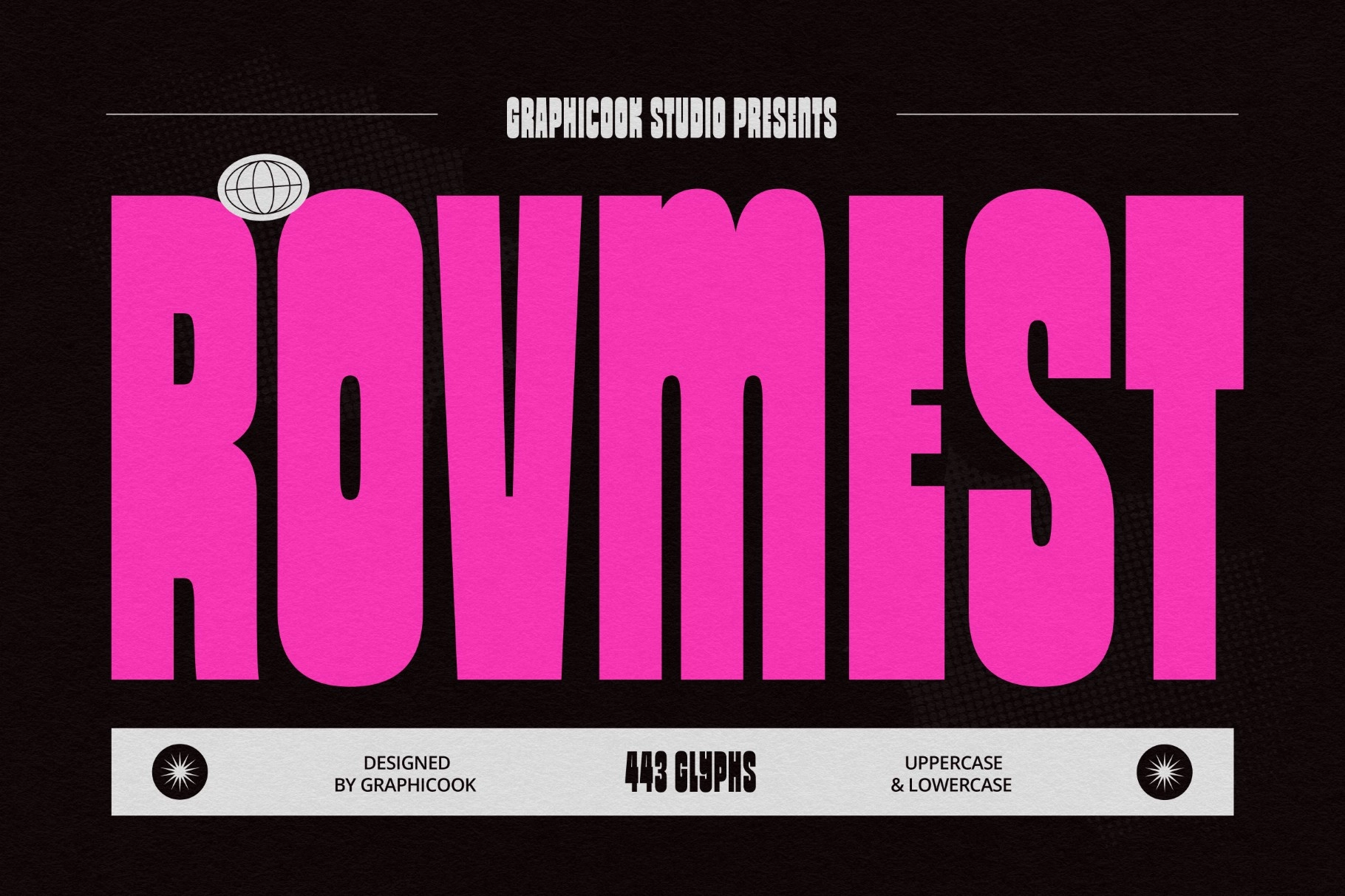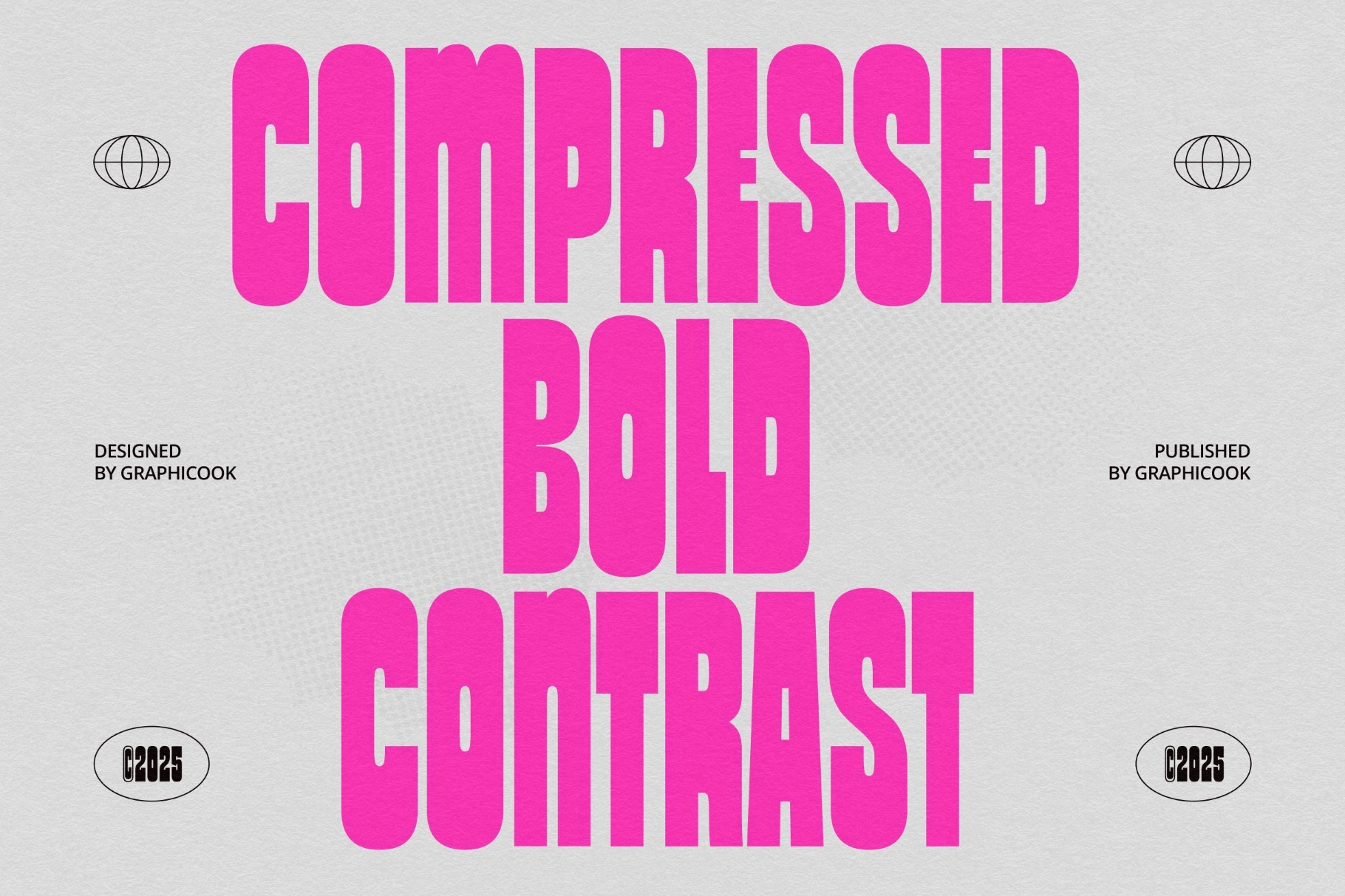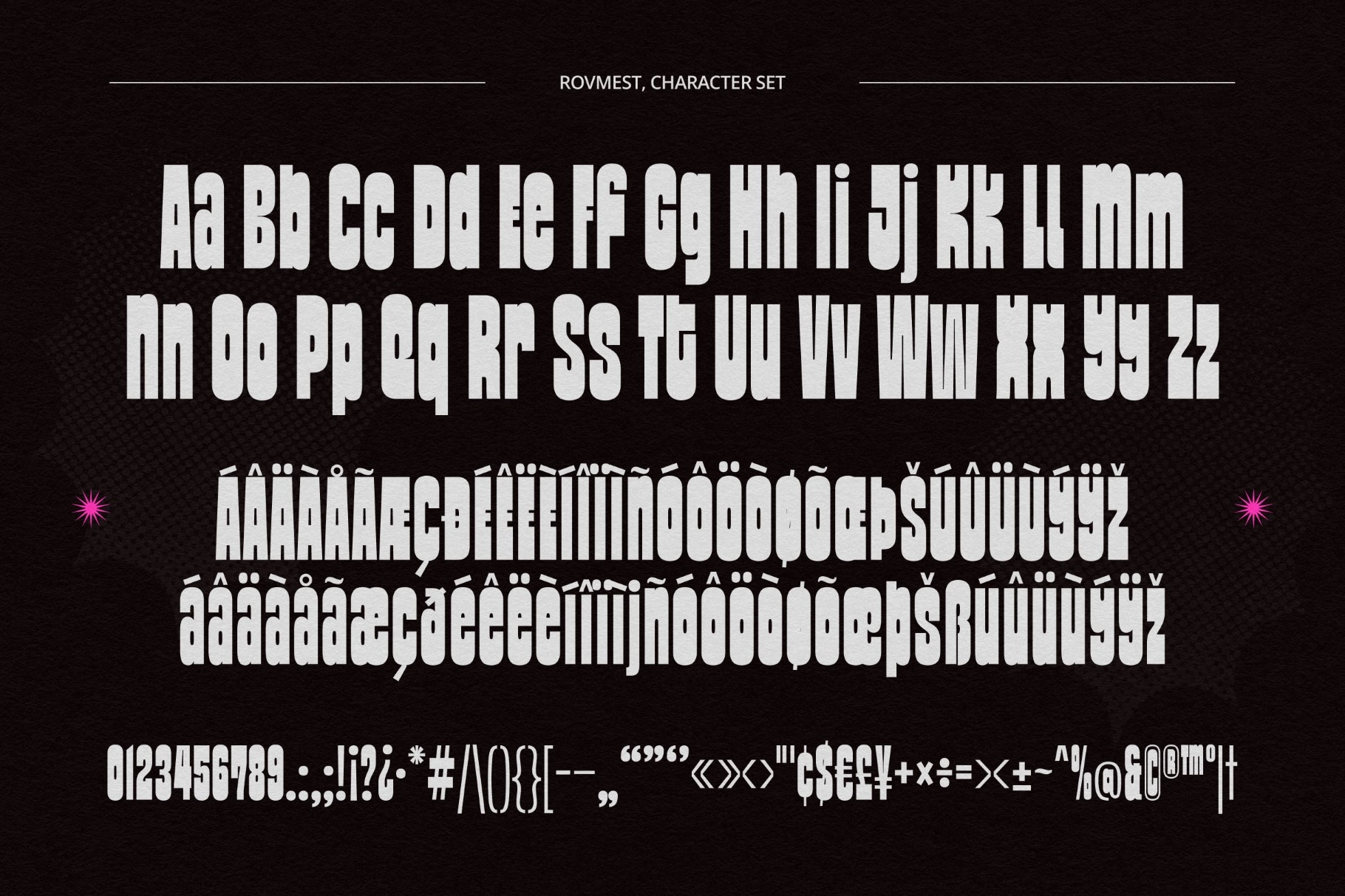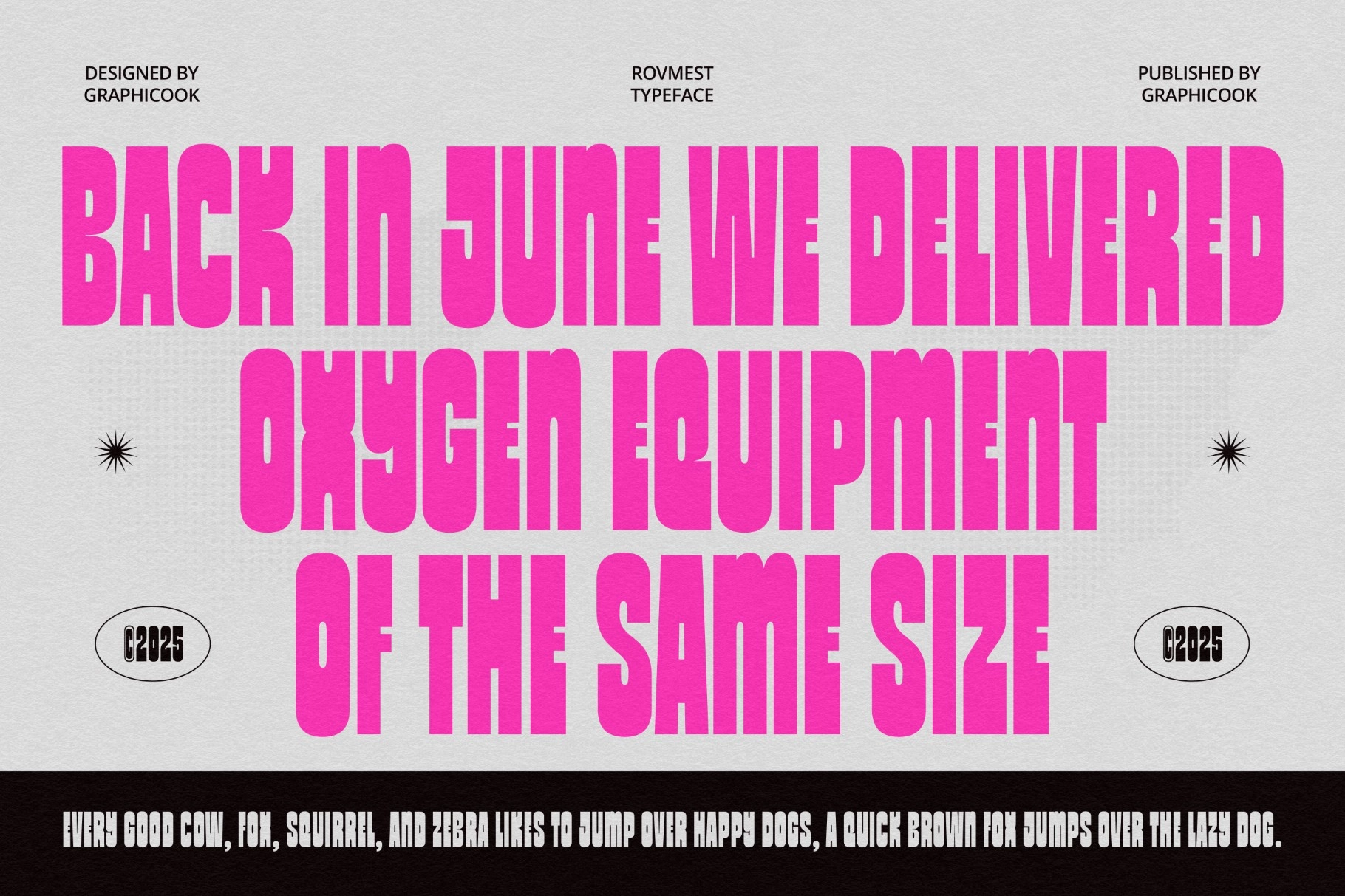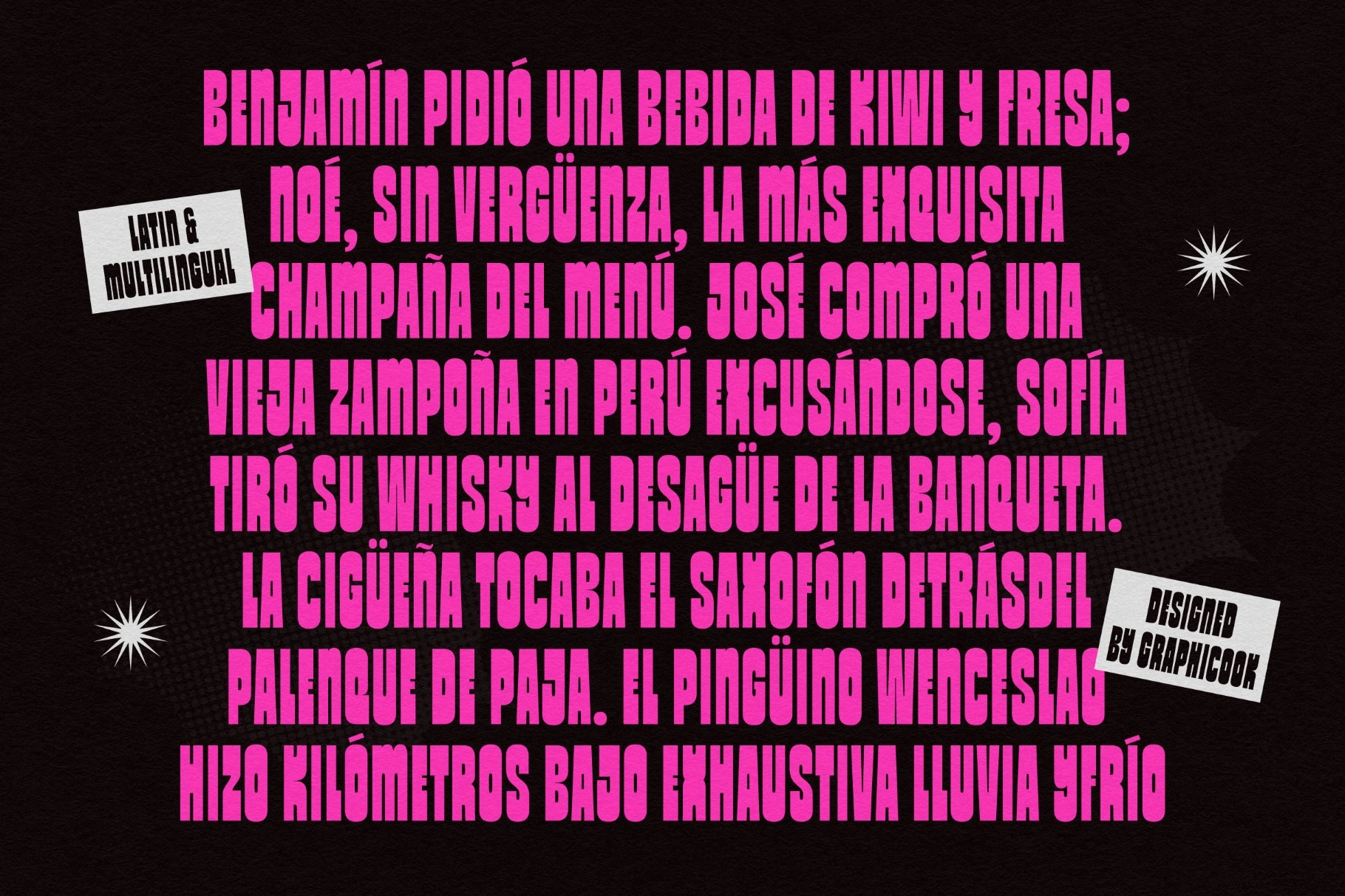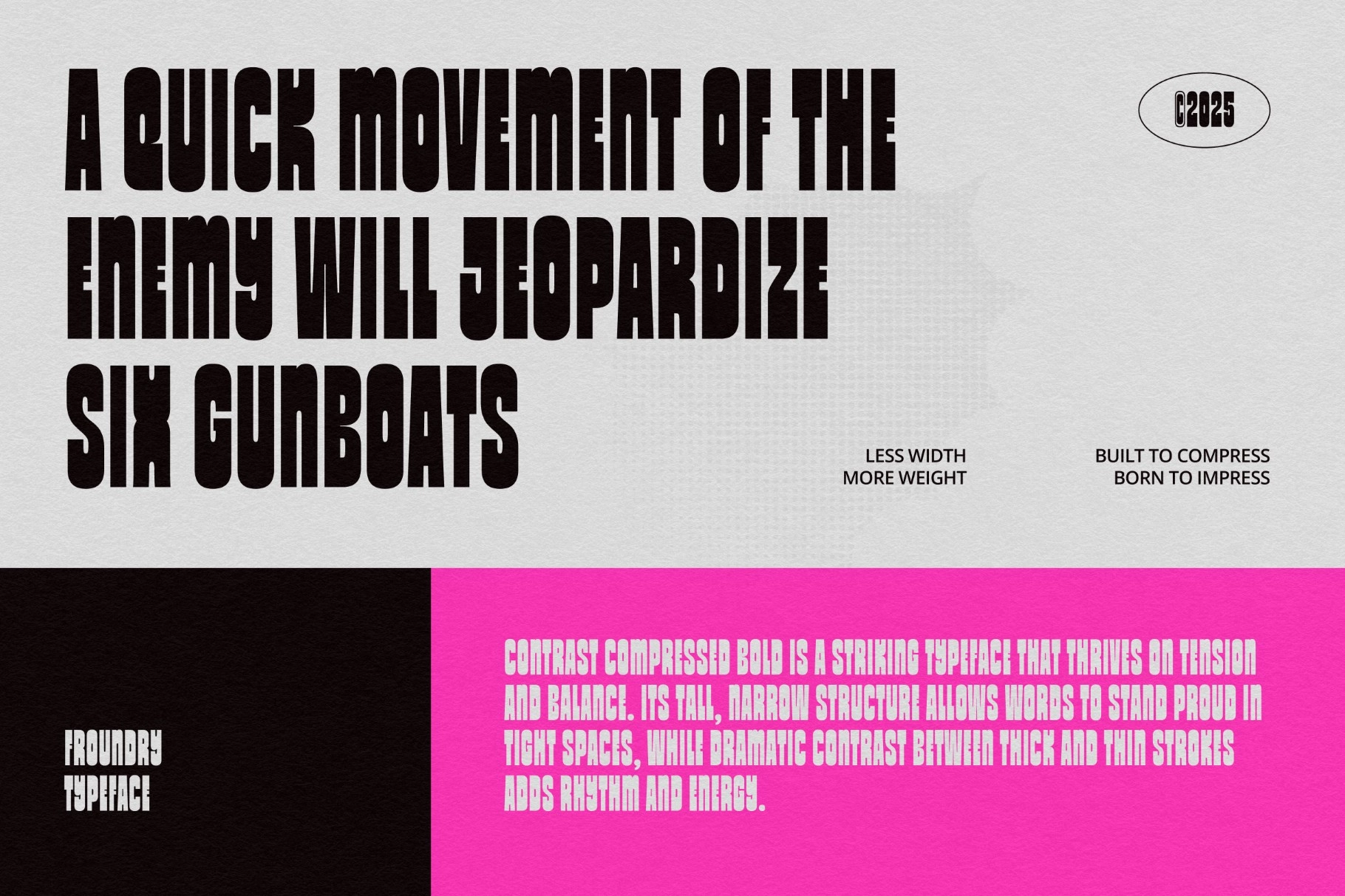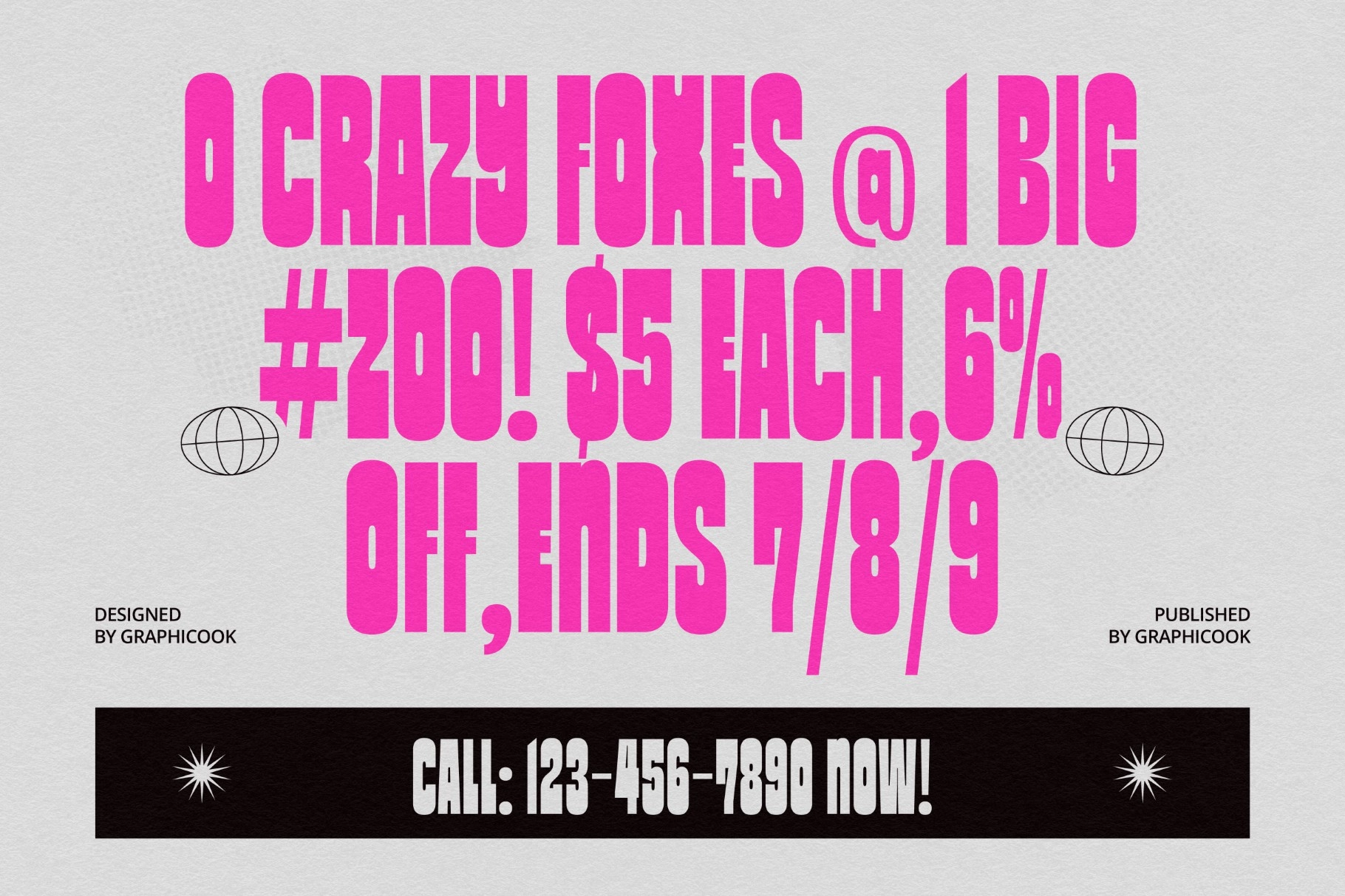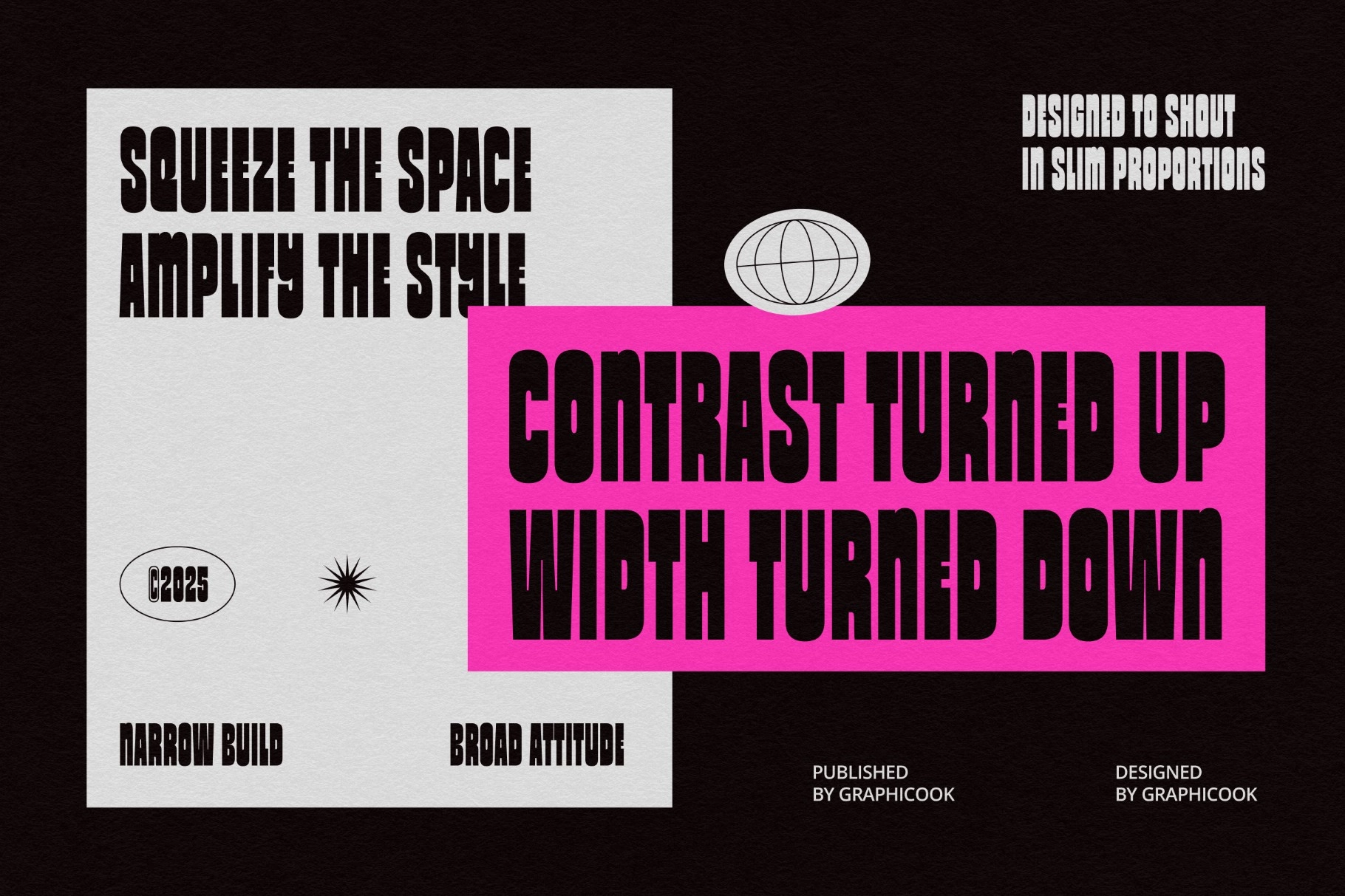
Rovmest - Ultra Bold Font
Rovmest
Rovmest - Ultra Bold Font is a tall, condensed display typeface with an extra-heavy weight that delivers a strong, striking presence in any layout. It’s ideal for impactful headlines, posters, logos, and branding where you need maximum attention and confident, modern styling.